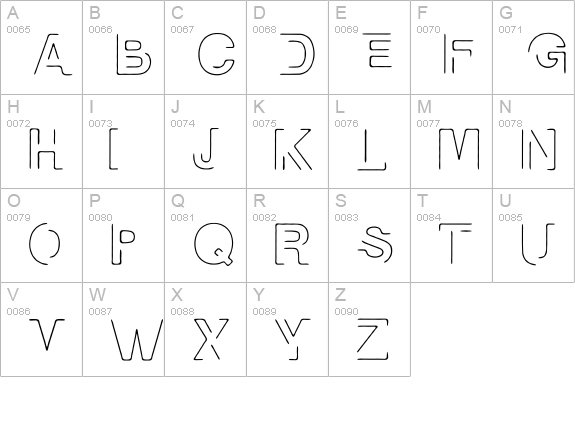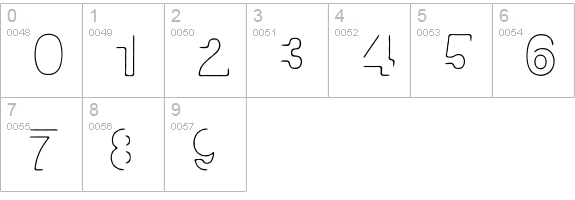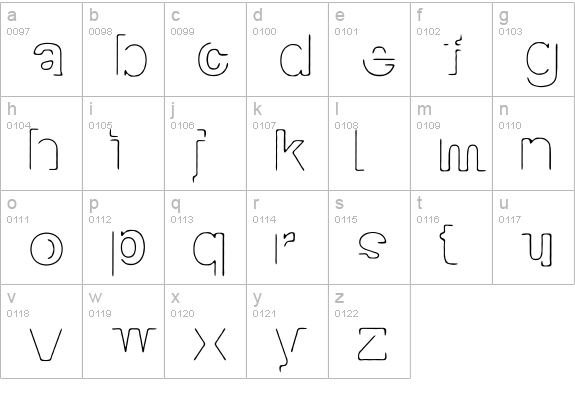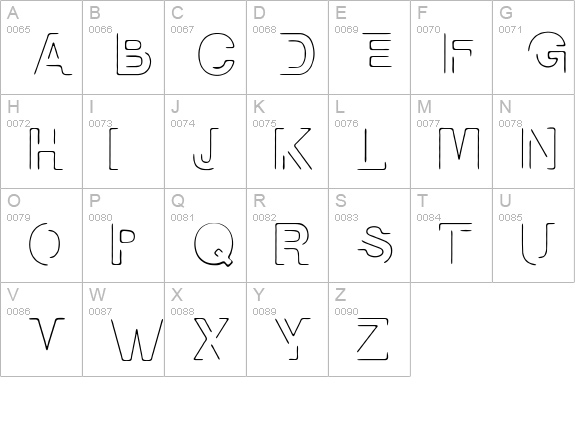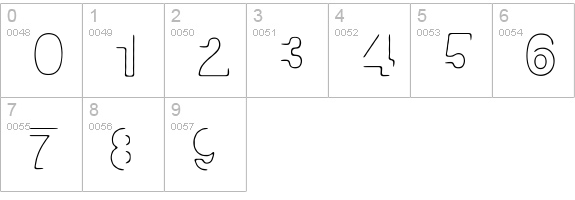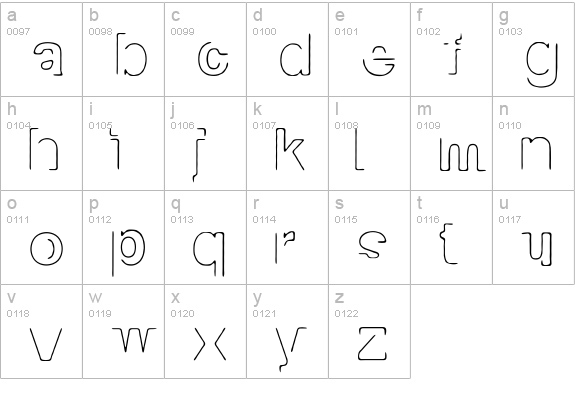
manko Font Details
Manko Font is a versatile and stylish typeface that effortlessly blends modern sophistication with a touch of playfulness. Its sleek lines and unique curves make it perfect for a wide range of design projects, from branding to packaging and everything in between. With a wide range of weights and styles, Manko Font offers endless possibilities for creating eye-catching text displays. What's even better is that Manko Font is available for free download at FontsMarket.com. This means you can easily access this stunning font and use it in your projects without any cost. Whether you're a seasoned designer looking to add a new font to your collection or a novice looking for a fresh and exciting typeface to experiment with, Manko Font is sure to impress. Download it today and elevate your designs with this beautiful and versatile font.